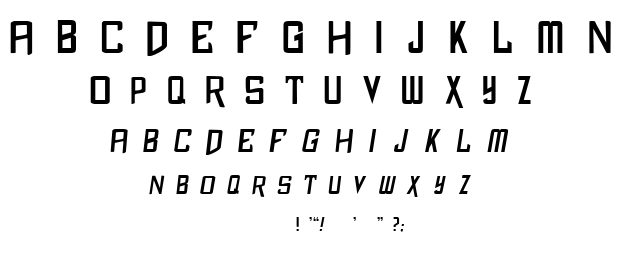
My own version of the excellent Title Font from “Clash of the Dinosaurs” on Discovery in 2011 a great TV show with a great looking font one of my first fan-fonts.